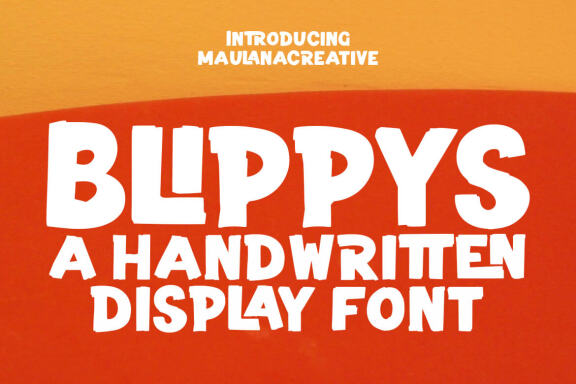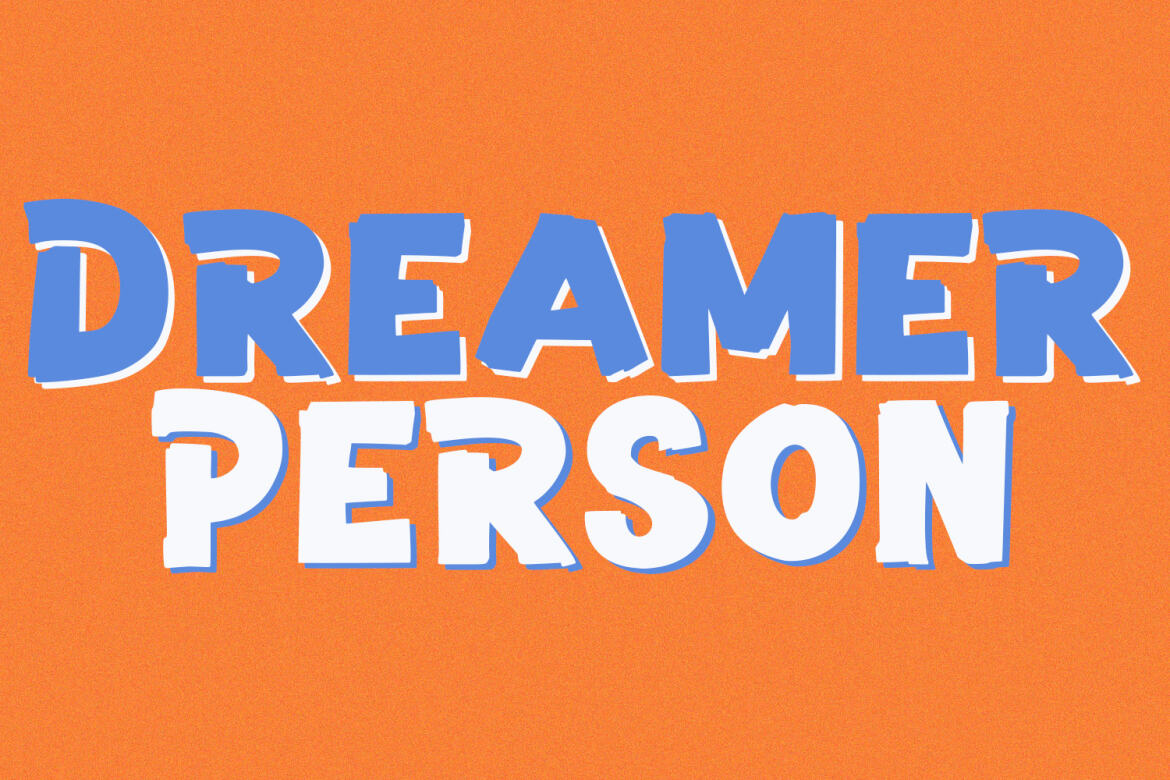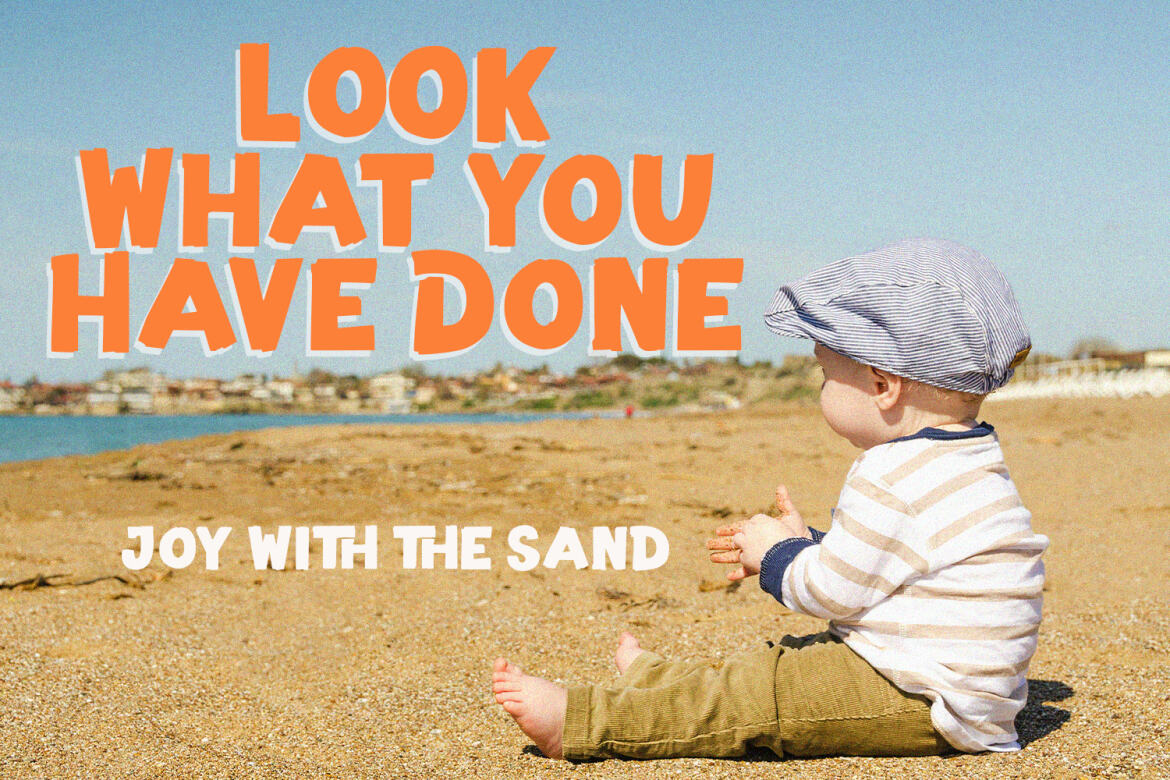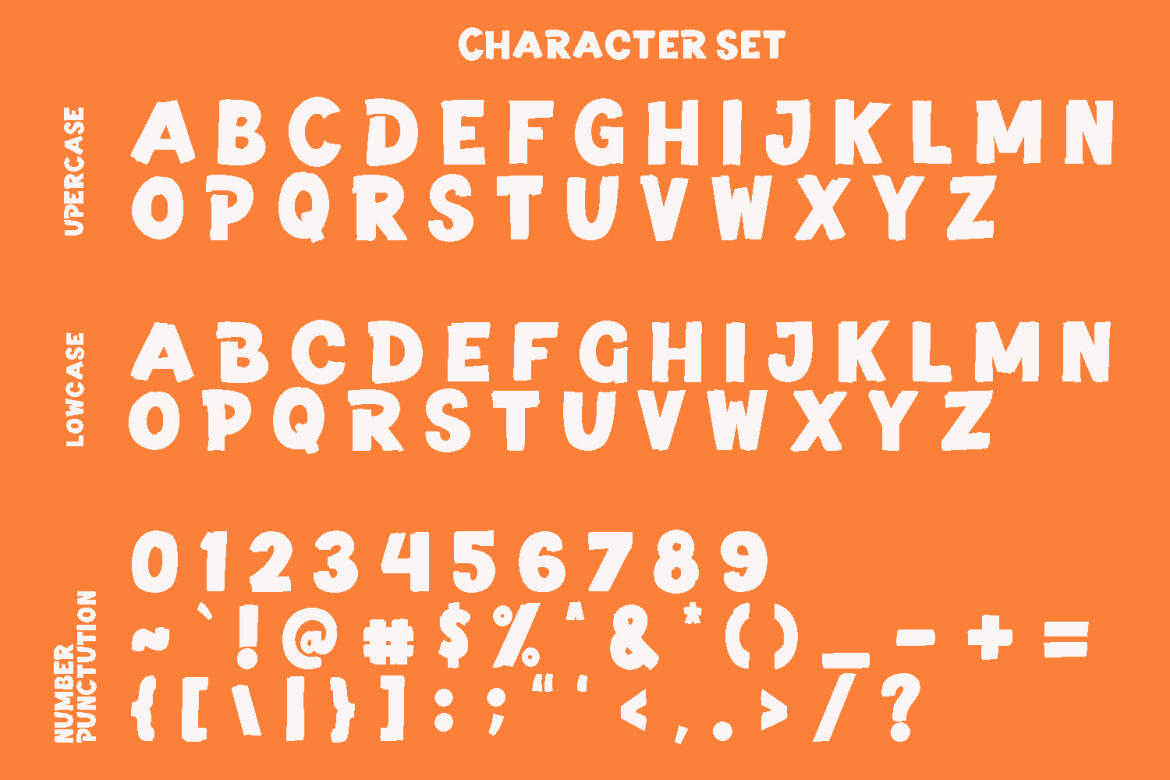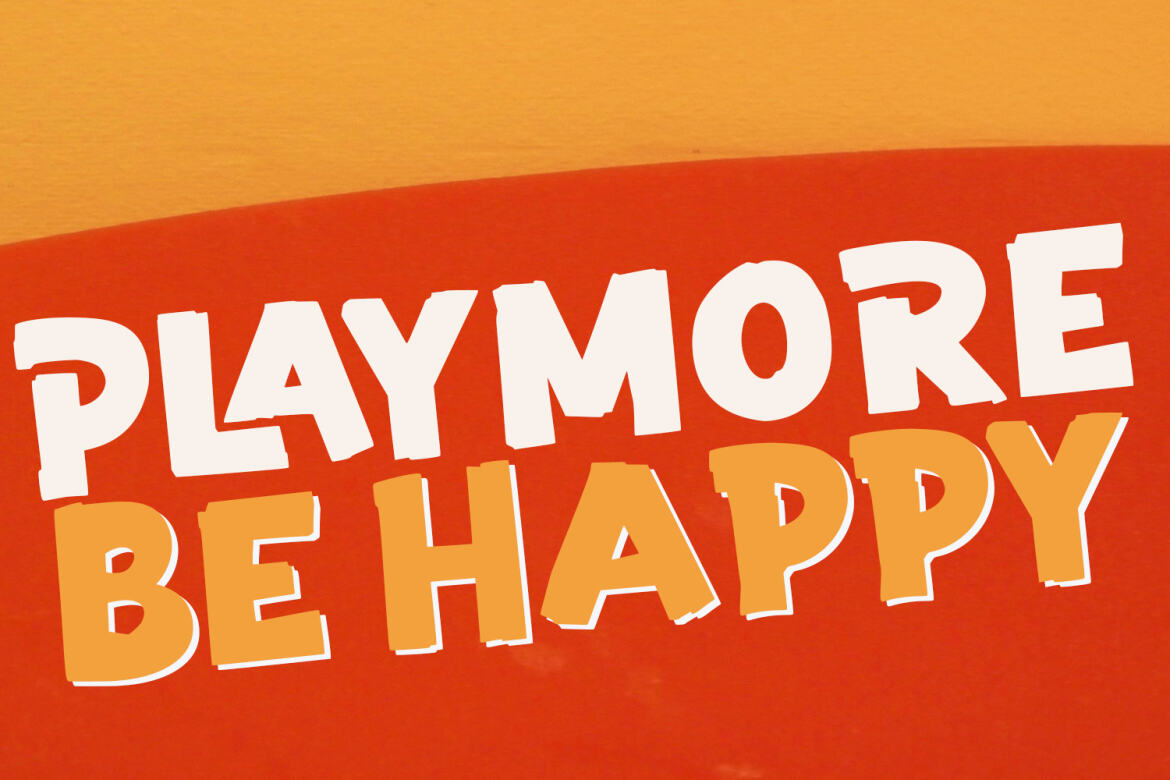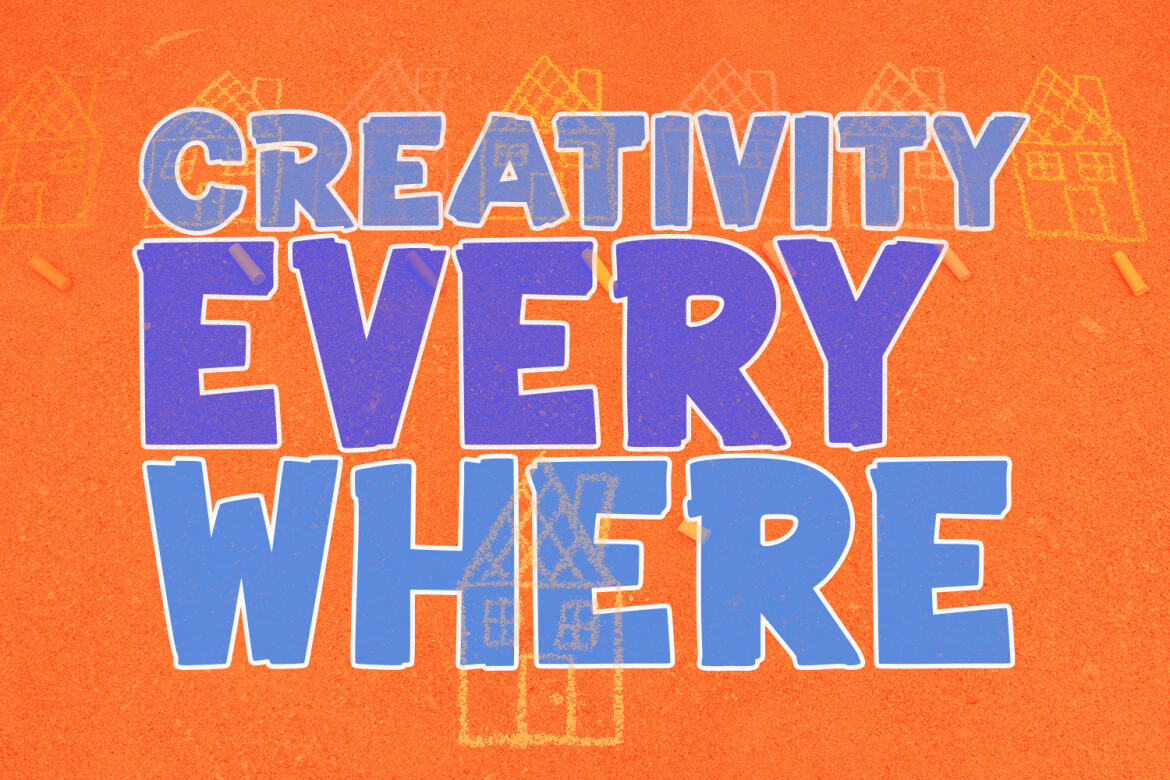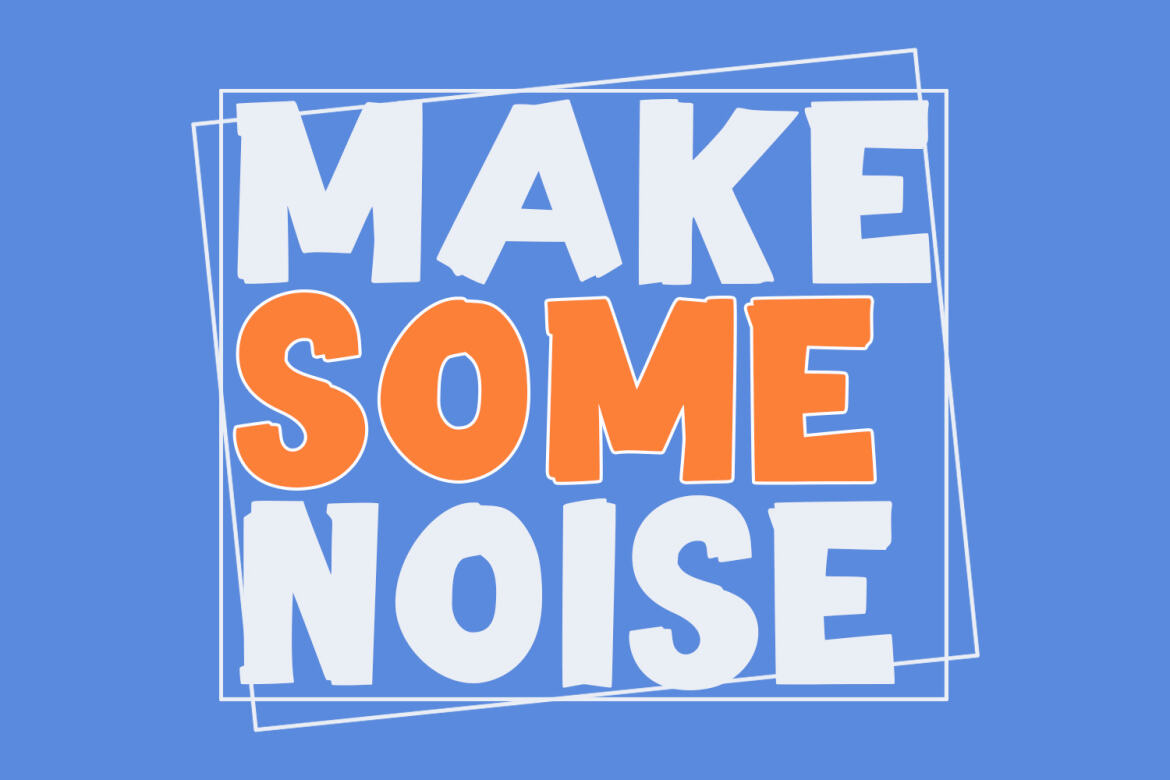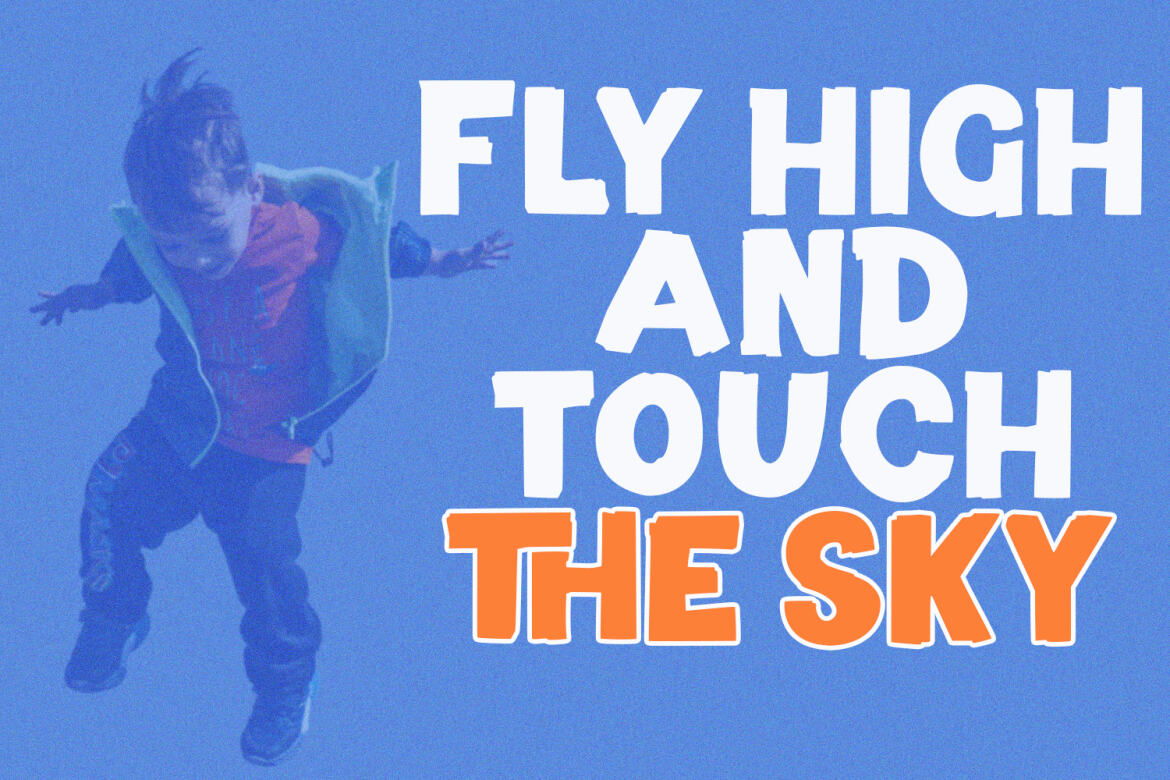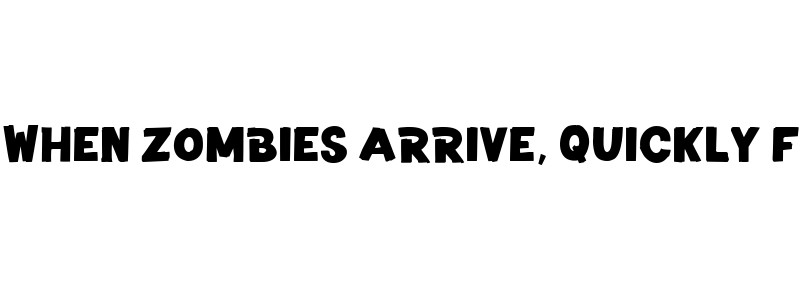
Blippys Handwritten FREE Font
Blippys preview
Blippys
Blippys is a cartoonish handwritten display font. With extra bold rough stroke, fun character with a bit of ligatures. To give you an extra creative work. Blippys font support multilingual more than 100+ language. This font is good for logo design, Social media, Movie Titles, Books Titles, a short text even a long text letter and good for your secondary text font with sans or serif. Make a stunning work with Blippys font.